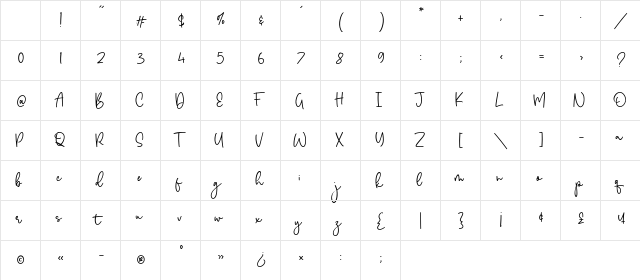
Complete Melwisa Jameson Regular glyph index. Displaying only characters natively supported by Melwisa Jameson Regular font.
Melwisa Jameson is a composed and adaptable typeface that performs quietly and consistently across a wide range of design contexts.